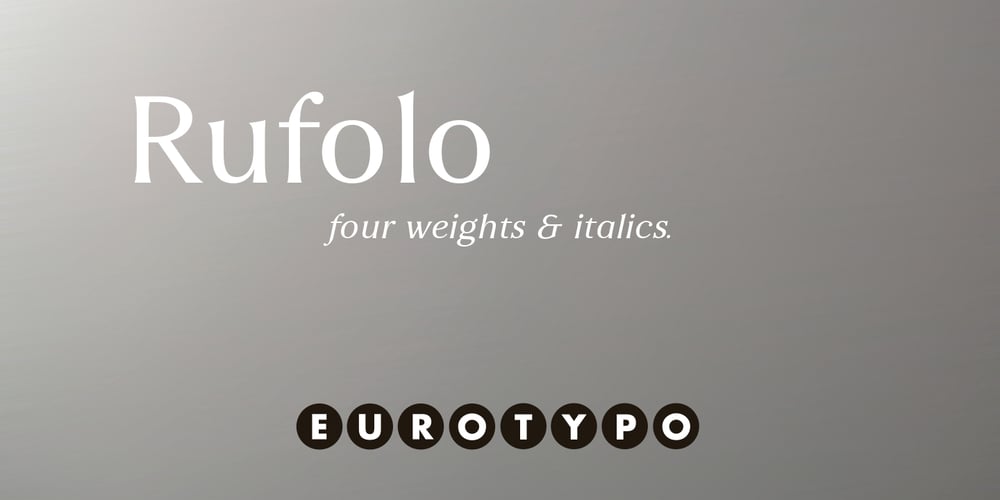
Rufolo Font Family was designed by Olcar Alcaide and published by Eurotypo. Rufolo contains 8 styles and family package options. Rufolo is a family of fonts that can be considered both aesthetic and utilitarian. It has an apparent serif, barely hinted at, whose clear past reference is a beautiful epigraphic script on the marble plate placed at the southern entrance of the Roman amphitheatre, in Pompeii.Perhaps its origin dates back to Ugarit’s cuneiform writing (as Morrison suggests as the origin of the serif in “Politics and Scripts”) whose characteristic triangular-shaped incision footprint produces a powerful trait that not only gives character to the writing but also facilitates its support and visual compensation of sizes with neighboring signs.Other clear inspirational references have been Robert Hunter Middleton’s Stellar (1929); Albertus (1932) by William A. Dwiggins; Optima (1952) by Hermann Zapf; And more recently RRollie (2016) by our foundry.Rufolo collects the attractive characteristic of the stroke endings but the proportions of its structure becomes much more regular, the capitals are in line with a constant square module, while the above references retain the proportions of the Roman Trajan.Some endings strokes have slightly baroque reminiscence with the intention of giving it greater plasticity and aesthetic enrichment, but absolutely controlled, taking special care of the aspects of readability and expressive neutrality.Rufolo Family comes in four weight: Light, Regular, Bold and Black, accompanied by its corresponding Italic versions.